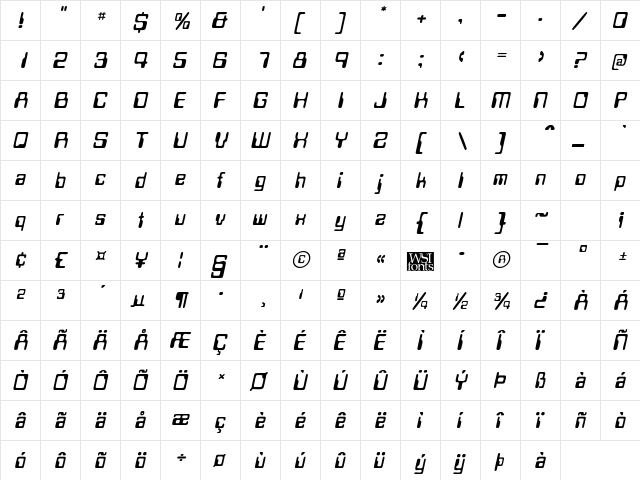
MagneticCard Italic
Design Context for MagneticCard Typeface
MagneticCard offers clean, dependable letterforms without strong stylistic allegiance, making it a practical choice for designers who need flexibility. Its italic angle brings a sense of urgency and motion to the letterforms.